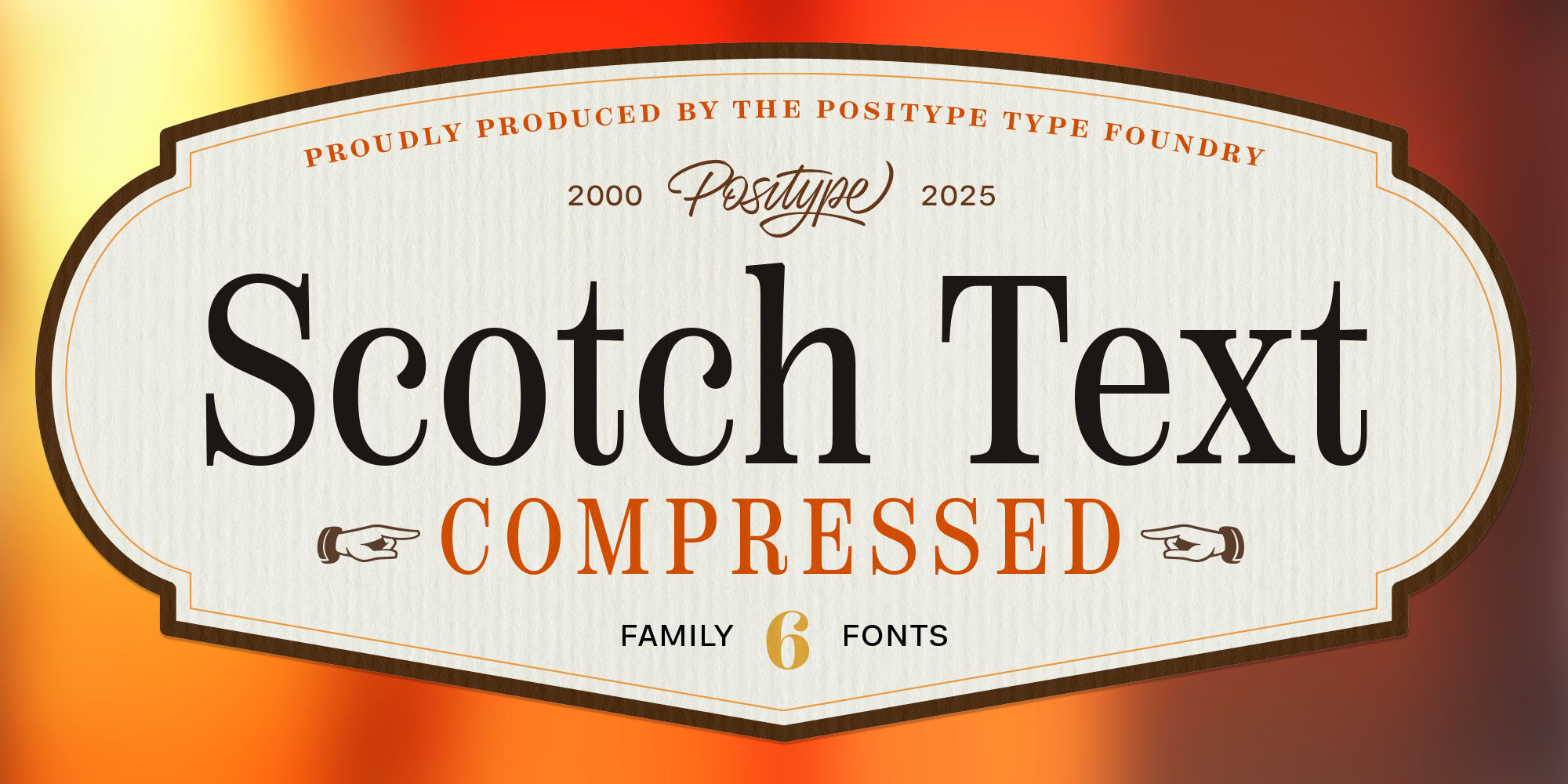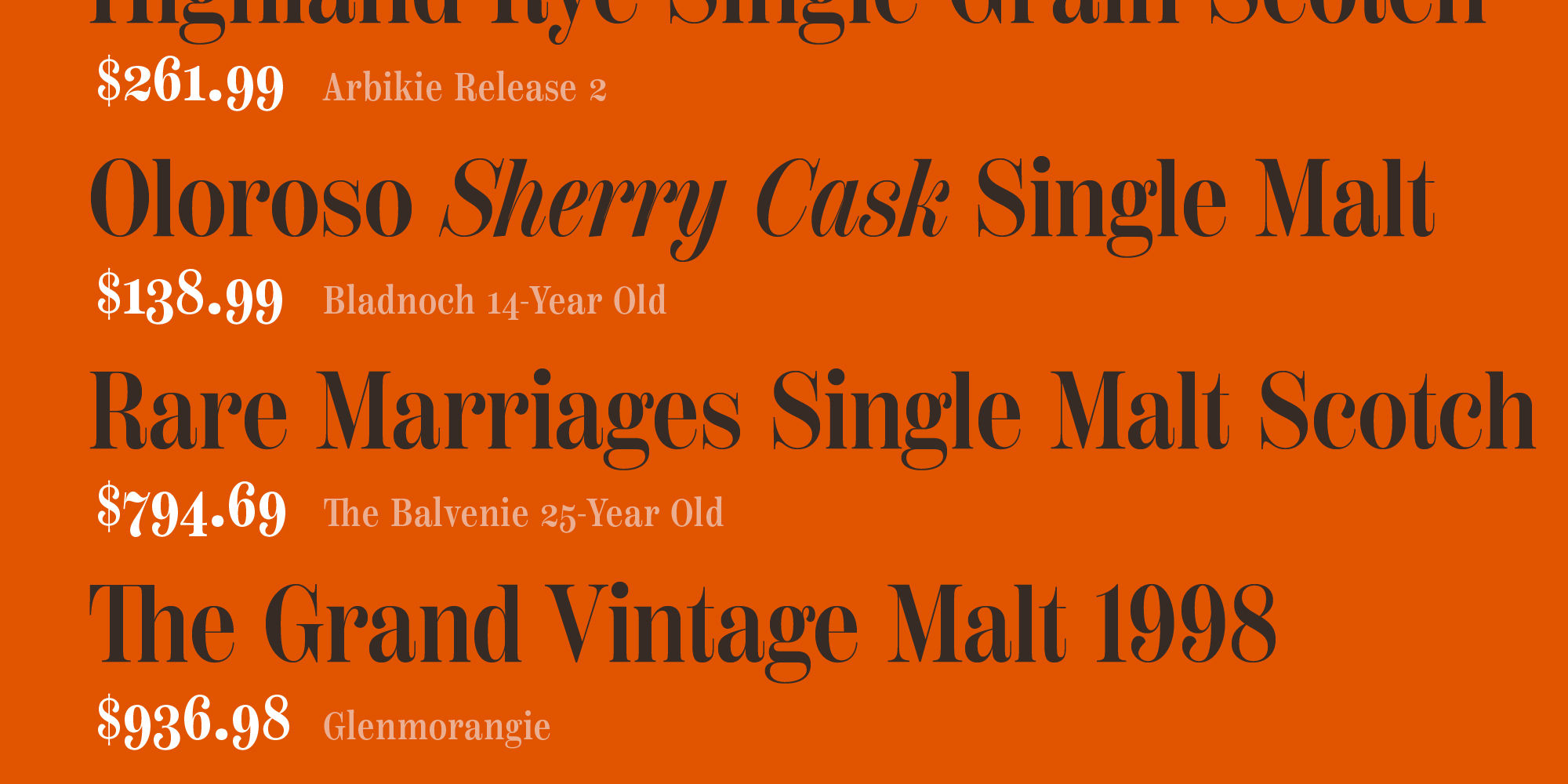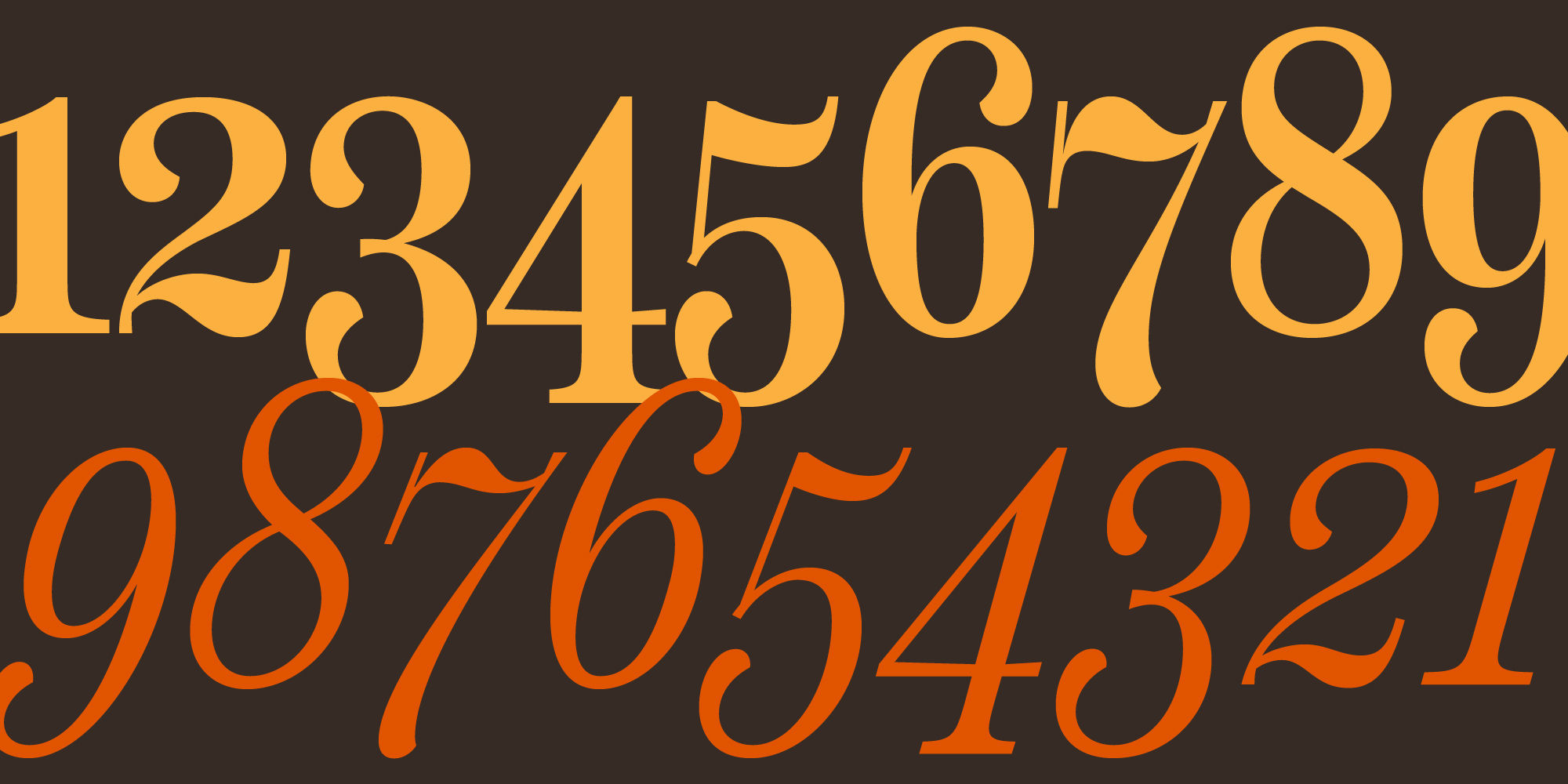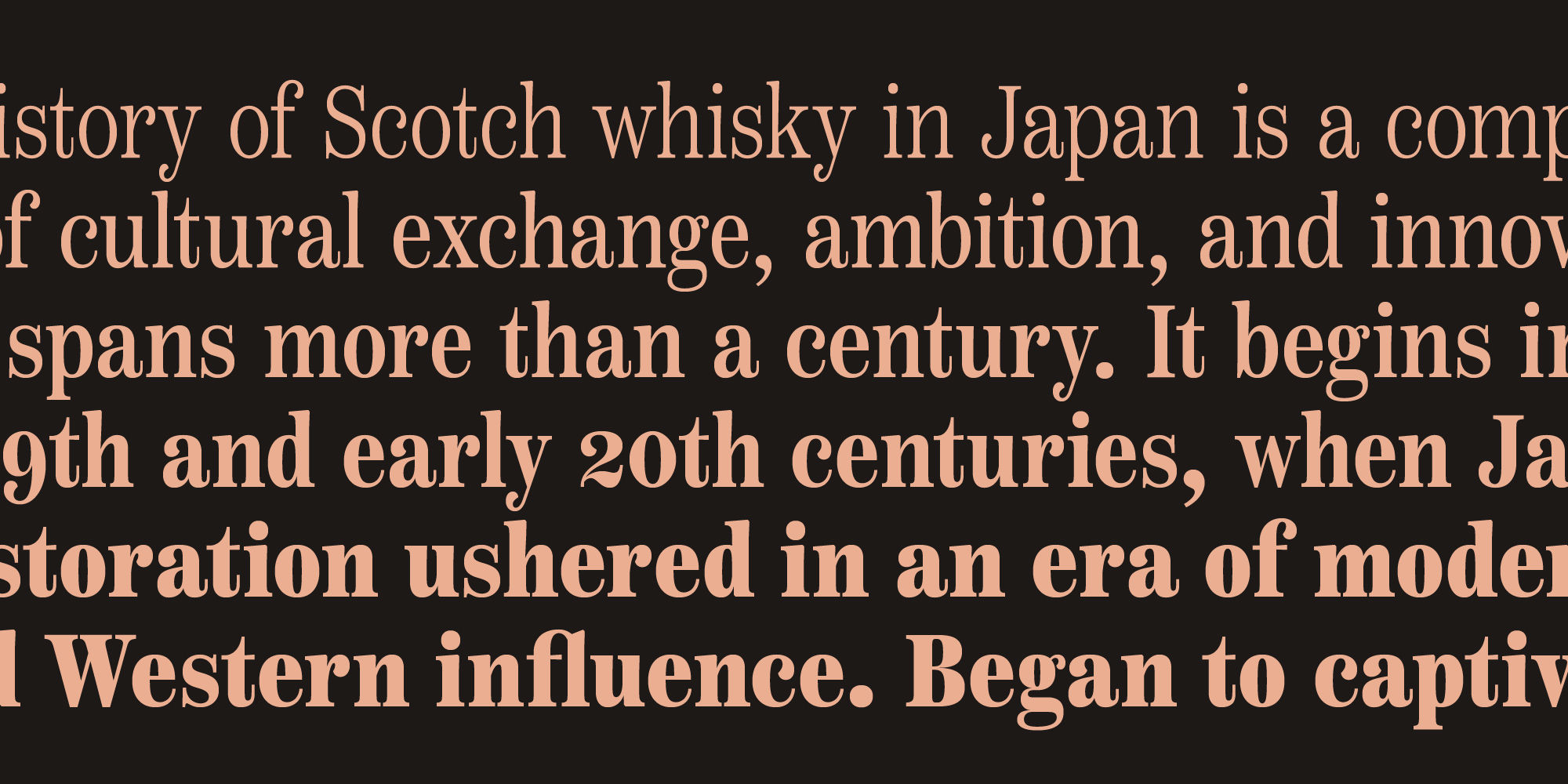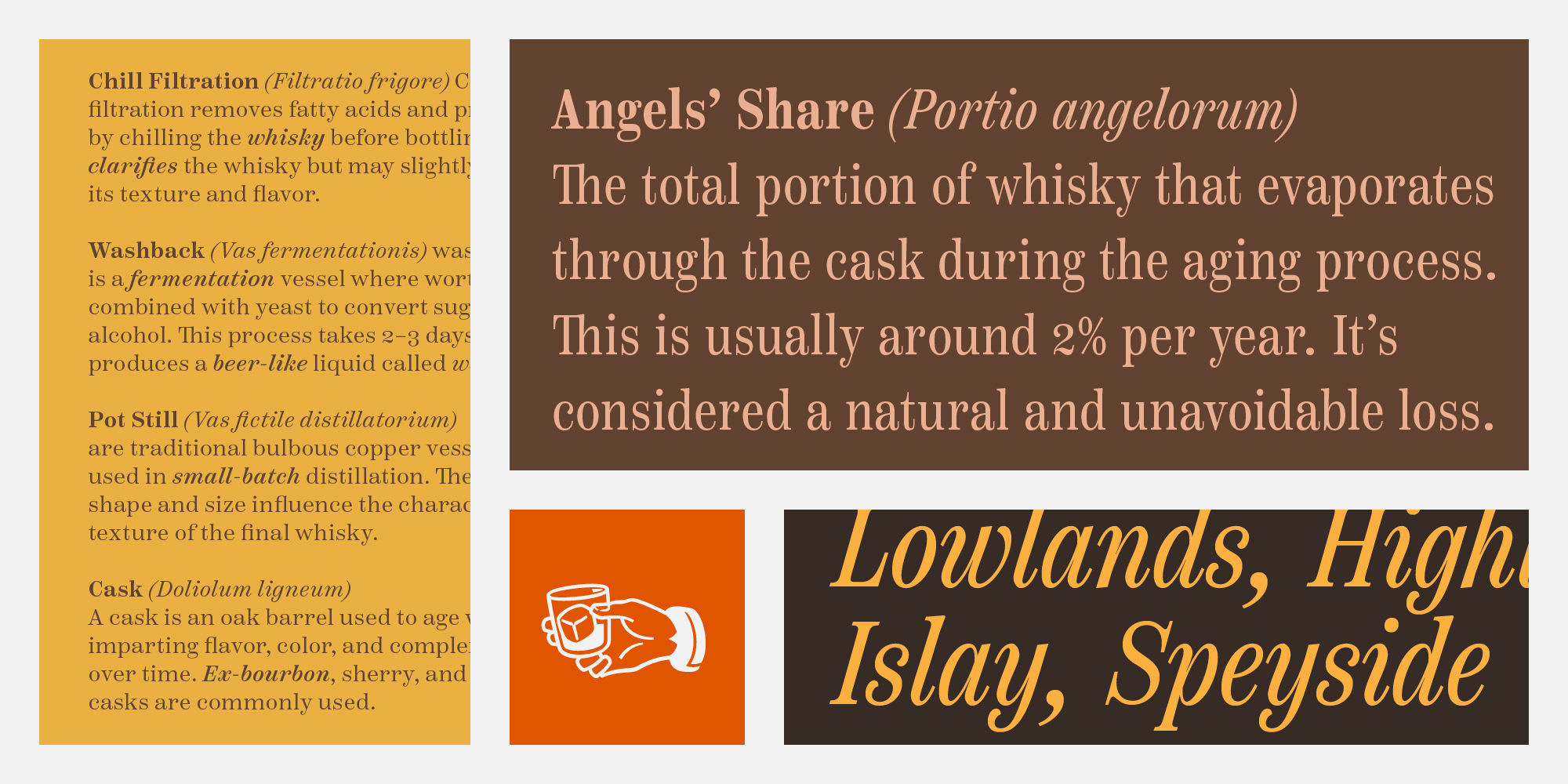
Scotch Text Compressed
LightLight ItalicRomanItalicMediumMedium ItalicSemiBold ItalicBoldBold ItalicBlackBlack Italic
Th ffb ffi ffk
Standard Ligaturesliga
Small Caps
Small Capssmcp
12/49 3/17 42/89
Fractionsfrac
x2+a35=n8
Superscriptsups
C2H5OH
Scientific Inferiorssinf
1st 2nd 3rd
Ordinalsordn
[H] @ H¿
Case-Sensitive Formscase
0123456789
Tabular Numeralstnum
$1259
Stylistic Set 1ss01
Clean, crisp, rational, familiar, modern… serifed. Positype Scotch reaches back to history just enough to produce something warm and easy on the eyes. No corners were cut, no quick tricks… this type suite was drawn for specificity: Text, Display, and Deck… ALL in 3 widths that now include Condensed and Compressed. Each unique, each inter-connected, each part of the whole.
Scotch Text is offered in 6 weights with matching true italics. Drawn for economy and an easy read, the family is a workhorse for long-passage text settings. 4 sets of numerals, well-proportioned small caps, and a plethora of extras round out each font.